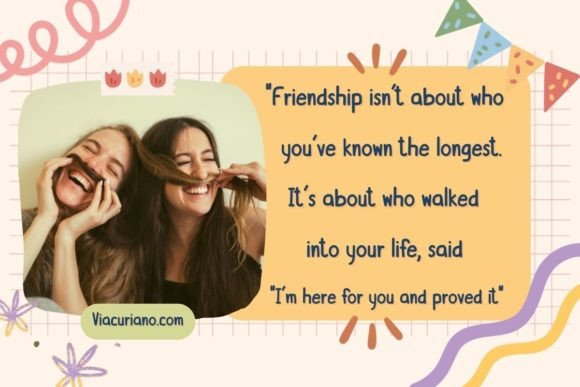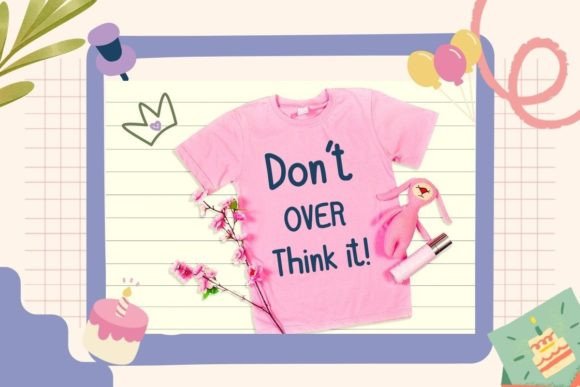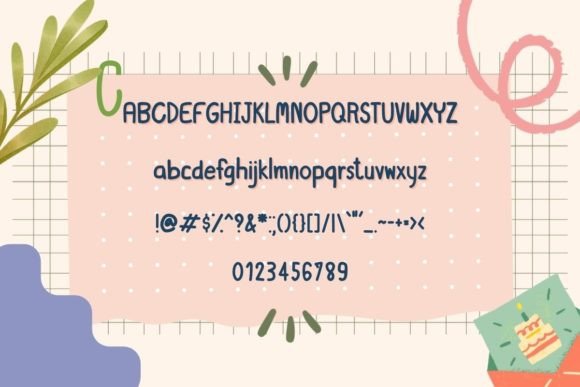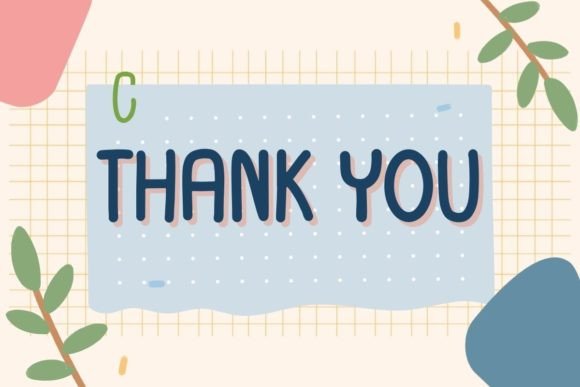
The Perfect Touch: Unlocking the Potential of Gummies Font
Do you remember the joy of crafting handmade cards for your loved ones as a child? The excitement of rummaging through your mom’s stationery box, searching for the perfect combination of colors and textures to make your creation truly special? As a designer, you understand the importance of adding that extra touch to make your work stand out.
Gummies Font is a classic handwritten font that has been a favorite among designers for its versatility and charm. With its wide range of applications, from greeting cards to kids’ crafts, this font is a wonderful asset to have in your library. Whether you’re working on a personal project or a commercial design, Gummies Font has the potential to enhance any creation.
As a valuable addition to your font library, Gummies Font offers endless possibilities for creativity and self-expression. Its unique charm and character make it an ideal choice for designers looking to add a personal touch to their work.
Gummies Font Key Features
- Character Set: This font features a wide range of characters, including uppercase and lowercase letters, numbers, punctuation marks, and special symbols, making it suitable for various applications.
- Unique Characteristics: Gummies Font boasts a unique, playful design with rounded edges and a soft, candy-like appearance, making it perfect for creating eye-catching and whimsical text.
- Font Weight and Style: The font family includes regular, bold, italic, and bold italic styles, allowing users to customize their text with various weights and styles.
- Multi-Language Support: Gummies Font supports multiple languages, including English, Spanish, French, German, Italian, and many others, making it a versatile choice for international applications.
Gummies Font Review
As a designer, I’ve had the chance to work with a wide range of fonts, and Gummies Font is definitely one that stands out. Here are my thoughts on this unique font.
- Gummies Font has a playful and fun vibe to it, making it perfect for children’s books, cartoons, and other creative projects.
- The font is highly customizable, allowing users to adjust the color, size, and style to fit their specific needs.
- Gummies Font is available in a variety of styles, from bold and chunky to light and delicate.
- Gummies Font may not be suitable for formal or professional projects, as it can come across as too playful or childish.
- The font can be a bit overwhelming when used in large quantities, so it’s best to use it in moderation.
- Some users may find the font difficult to read, especially at small sizes.
Gummies Font is a fun and creative font that’s perfect for projects that need a playful touch. While it may have some limitations, I think it’s a great addition to any designer’s toolkit. With a little creativity and restraint, Gummies Font can add a lot of visual interest to a design.
The Gummies Font is ideal for:
- Creatives and designers looking for a fun, playful font.
- Food and beverage brands needing a font that evokes a sense of fun and approachability.
- Children’s products and educational materials requiring a friendly, approachable font.
For best results, use the Gummies Font in conjunction with bold colors and playful graphics.